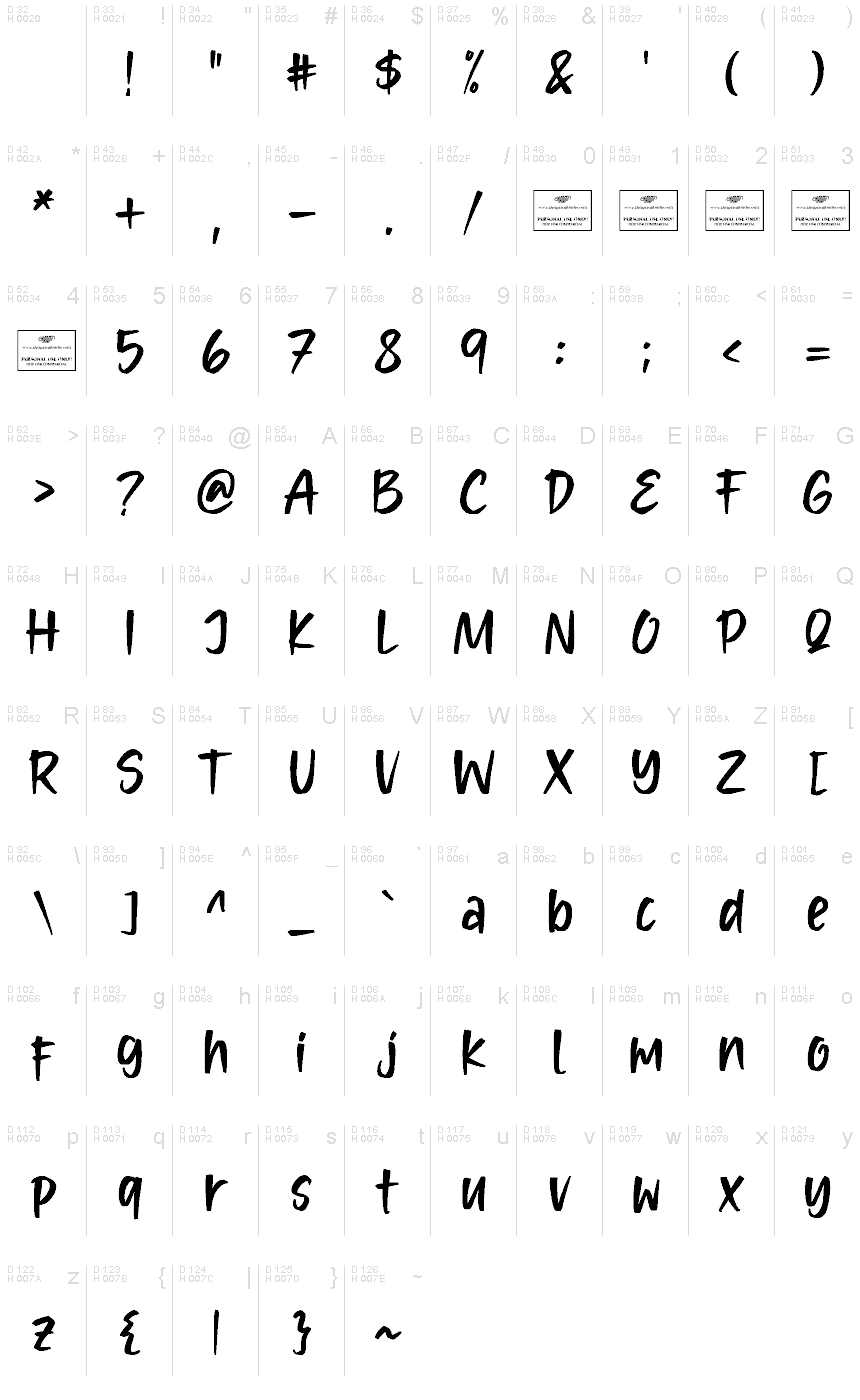
Marako
Marako font by Alpaprana Studio is a handwritten organic font with dynamic features and unusual expressions. Inspired by imperfect brush strokes, the shapes of the characters of this free handwritten font communicate easiness, calmness, and a carefree spirit. Their charm expands even further thanks to interesting ligatures and swashes which are unexampled but contemporary in form.
Enjoy your not-so-ordinary Marako typing experience while building logos, preparing product packaging or signage, and working on branding projects or print designs. Magazines, invitations, digital products such as games or apps may also benefit from being presented in an eye-catching way using this typeface.